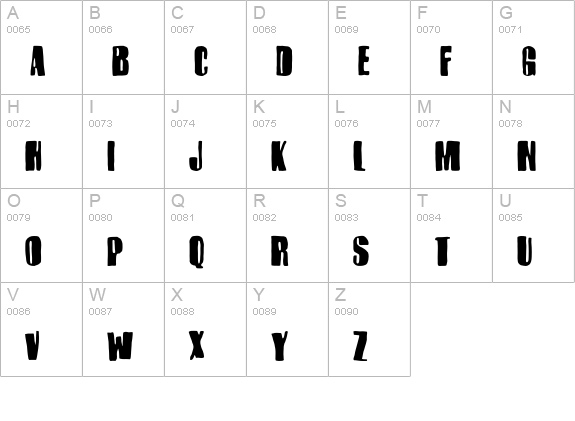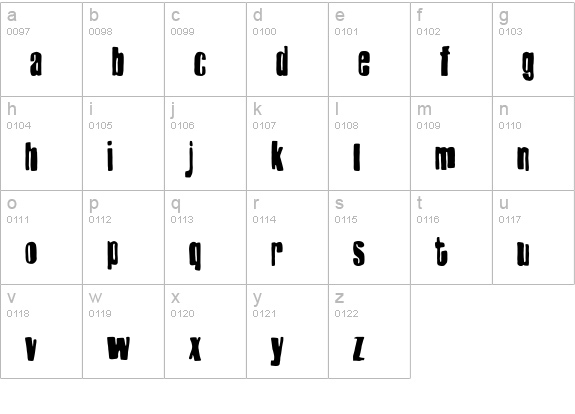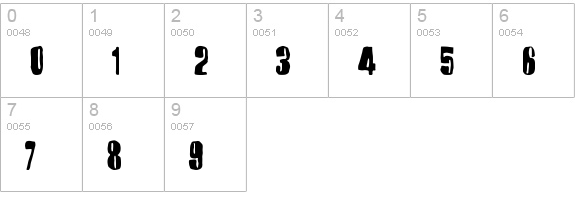
Harlem-Slang Bold Font Details
Harlem-Slang Bold is a strong, high-contrast variant in the Harlem typeface family \xE2\x80\x94 well suited to headlines, attention-grabbing titles, and strong calls-to-action.
Introducing Harlem-Slang Bold, a typeface that exudes a captivating and dynamic energy, perfect for making a bold statement. This font embraces the spirit and vibrancy of Harlem, a neighborhood renowned for its rich cultural heritage and influential artistic movements. With its strong and confident letterforms, Harlem-Slang Bold commands attention and adds a touch of urban elegance to any design project. It effortlessly combines classic typographic elements with a modern twist, resulting in a visually striking and versatile font that can be used across various mediums. The free-spirited nature of Harlem-Slang Bold allows it to effortlessly adapt to any creative vision. Whether you're designing a captivating poster, a stylish logo, or an eye-catching website, this font will bring a fresh and distinctive edge to your work. Downloading Harlem-Slang Bold is a breeze, as it is freely available to download at FontsMarket.com. You can effortlessly enhance your design repertoire and unleash your creativity with this unique typeface that pays homage to the vibrant spirit of Harlem. So, if you're ready to infuse your design projects with a touch of urban sophistication and artistic flair, look no further than Harlem-Slang Bold. Download it today and let your imagination run wild as you explore the limitless possibilities that this font has to offer.